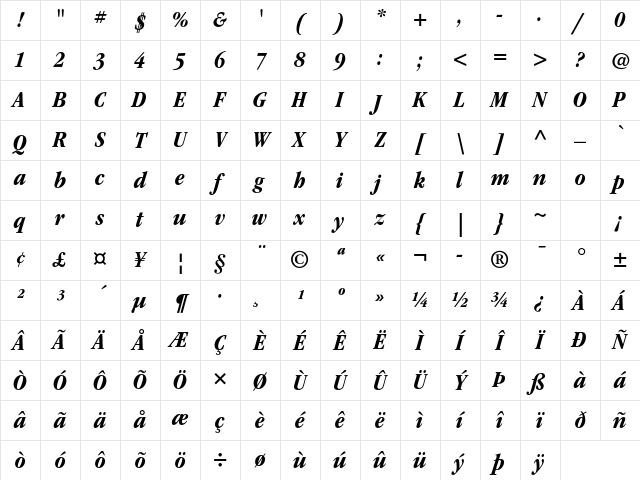
ITC Garamond Std Bold Condensed Italic
Style: Bold Condensed Italic
Designer: Tony Stan
Complete ITC Garamond Std Bold Condensed Italic glyph index. Displaying only characters natively supported by ITC Garamond Std Bold Condensed Italic font.
Design Context for ITC Garamond Std
ITC Garamond Std is a composed and adaptable typeface that performs quietly and consistently across a wide range of design contexts. The slanted form adds forward momentum and visual energy. Its bold stroke weight gives it real presence on the page. Its narrow stance lets it pack a punch even in space-constrained designs.
Pro Tip: Use ITC Garamond Std for emphasis, pull quotes, and subheadings where its slanted energy can add rhythm to the layout.